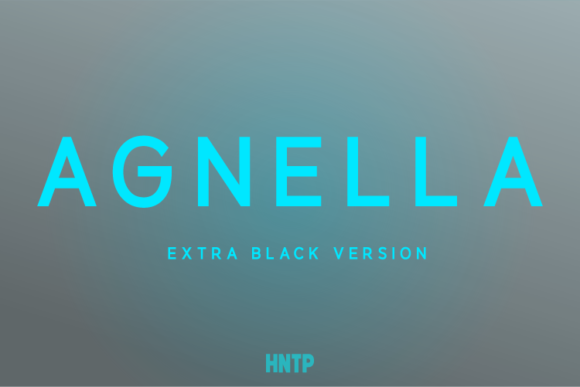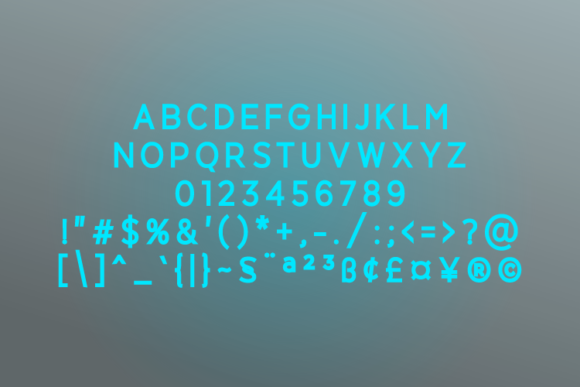
HomeSans Serif FontsAgnella Extra Black Font Sans Serif Fonts Agnella Extra Black Font FacebookXPinterestWhatsApp Agnella Extra Black Font 1 of 2 About Agnella Extra Black Font Agnella is an effective sans serif with a touch of subtle elegance. Agnella’s vertically and horizontally cut stems make it appear strong and steady. DOWNLOAD ON CREATIVE FABRICAThis font is sold and delivered by Creative Fabrica. Font Canyon may earn a commission if you buy through this link. People also explored Beauty Magnolia Font Sallith Font Monogram Winter Unicorn Font Bellavenita Font Play Rocket Font Mrs. Hinch Font DoeWoodLines Font Canthika Font Barian Font 369 0 TagsAgnella Extra Black Font Previous articleUniqueen Thin FontNext articleAgnella Black Font LEAVE A REPLY Cancel reply Comment: Please enter your comment! Name:* Please enter your name here Email:* You have entered an incorrect email address! Please enter your email address here Website: Save my name, email, and website in this browser for the next time I comment. Personal Use Free Clumed Personal Use Free Read more about this font Oatmeal Personal Use Free Read more about this font Dream Personal Use Free Read more about this font Round Geometric Personal Use Free Read more about this font BLOG To increase your work productivity, choose the most readable fonts. In today's fast-paced work environment, where digital communication and information consumption are integral to our daily routines, the choice of fonts can significantly impact... Elegant Wedding Invitation Fonts – Handwritten & Script Fonts How to Install and Use Fonts on Windows, macOS, and Web Projects Top 7 Google Fonts Alternatives for Faster and Privacy-Friendly Web Design (2025)